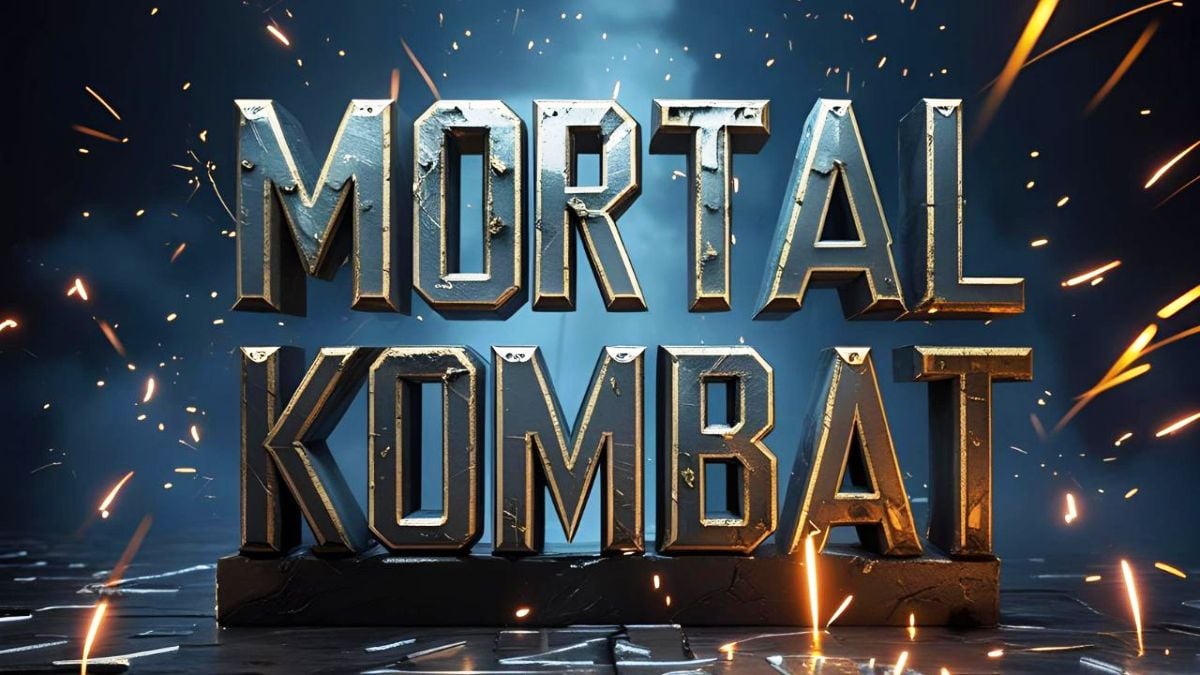
Create legendary gaming text with the iconic Mortal Kombat style! Use our Mortal Kombat Font Generator to preview and design fighting game-inspired text for gaming projects, fan art, and creative designs. Download the Mortal Kombat font for free and bring that classic arcade aesthetic to your work.
The Mortal Kombat font captures the bold, aggressive aesthetic of the legendary fighting game franchise. With its distinctive sharp edges and powerful presence, this font instantly evokes the brutal energy and iconic style that revolutionized gaming since the early 1990s.
Pro Tip: Creating the Classic “FATALITY” Effect
To recreate the iconic “FATALITY” text from the game:
1. Type “FATALITY” in all caps
2. Use a bright red color (#ff0000)
3. Add a subtle drop shadow
4. For extra authenticity, add a slight dripping effect to mimic blood
Example: FATALITY
Where to Use the Mortal Kombat Font
• Gaming Projects: Create custom thumbnails, stream overlays, or gaming channel graphics.
• Fan Art: Design authentic-looking Mortal Kombat tributes and memorabilia.
• Social Media: Make your gaming-related posts stand out with iconic typography.
• Party Invitations: Create eye-catching invites for gaming tournaments or themed parties.
• Merchandise Concepts: Design t-shirt ideas, posters, and collectibles.
Design Tips for Gaming Fonts
• Use Bold Colors: Mortal Kombat fonts look best with red and black (the game’s signature colors) or high-contrast combinations.
• Keep It Bold: This font works best at larger sizes where its powerful details can make an impact.
• Add Effects: Consider adding subtle fire effects, glows, or blood splatters for authentic gaming aesthetics.
• Pair with Images: Combine with gaming imagery or character silhouettes for maximum impact.
What makes the Mortal Kombat font unique?
Its bold, sharp-edged style captures the aggressive energy of the fighting game—perfect for fans, gamers, and design enthusiasts.
How do I make my text look more like the Mortal Kombat logo?
Use red text on a black background, add a subtle glow effect, and consider adding the iconic dragon symbol for that authentic Mortal Kombat look.